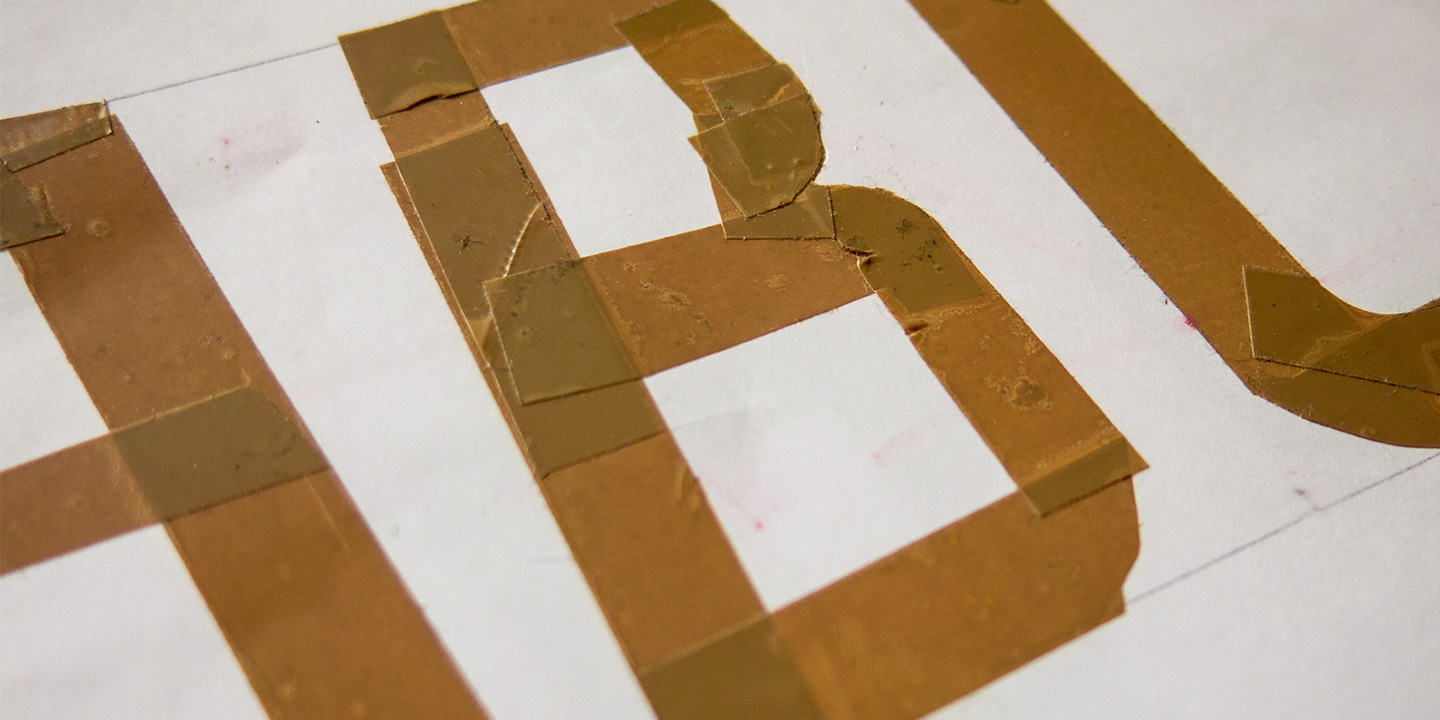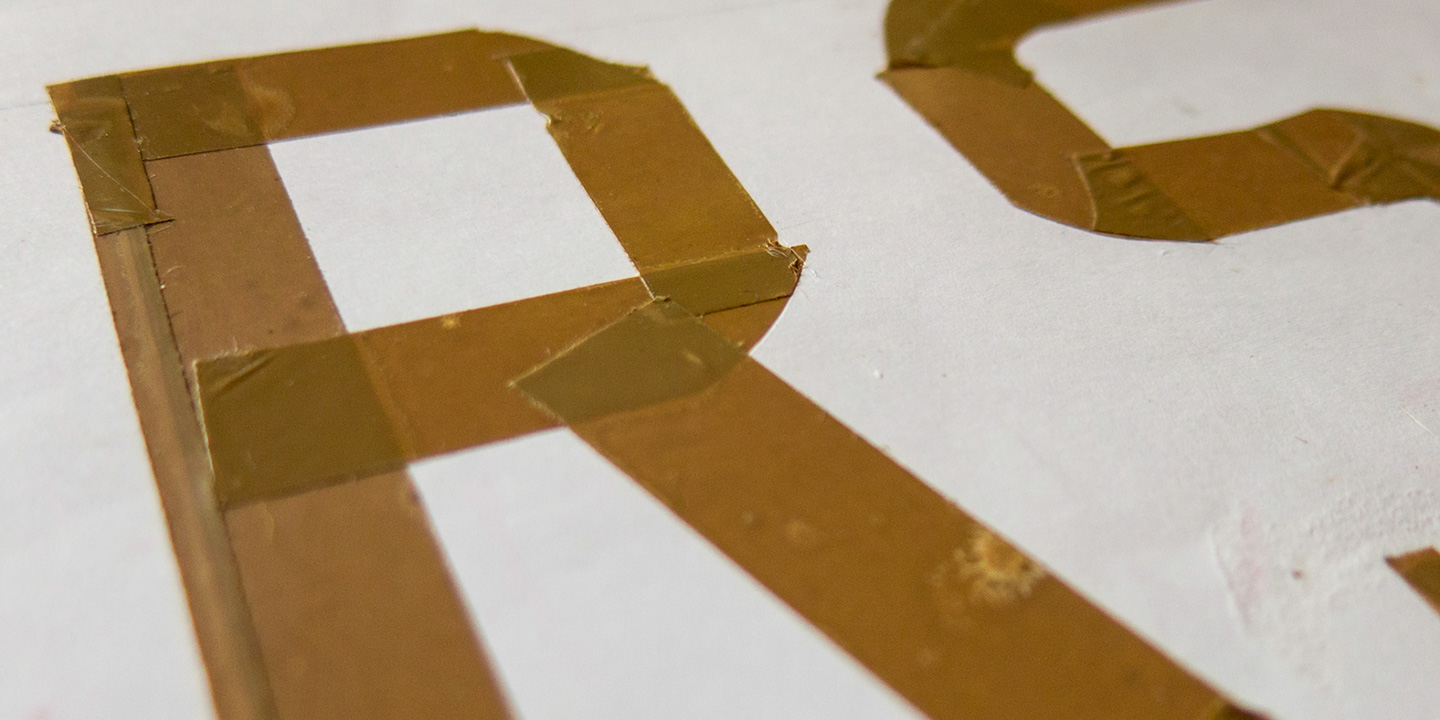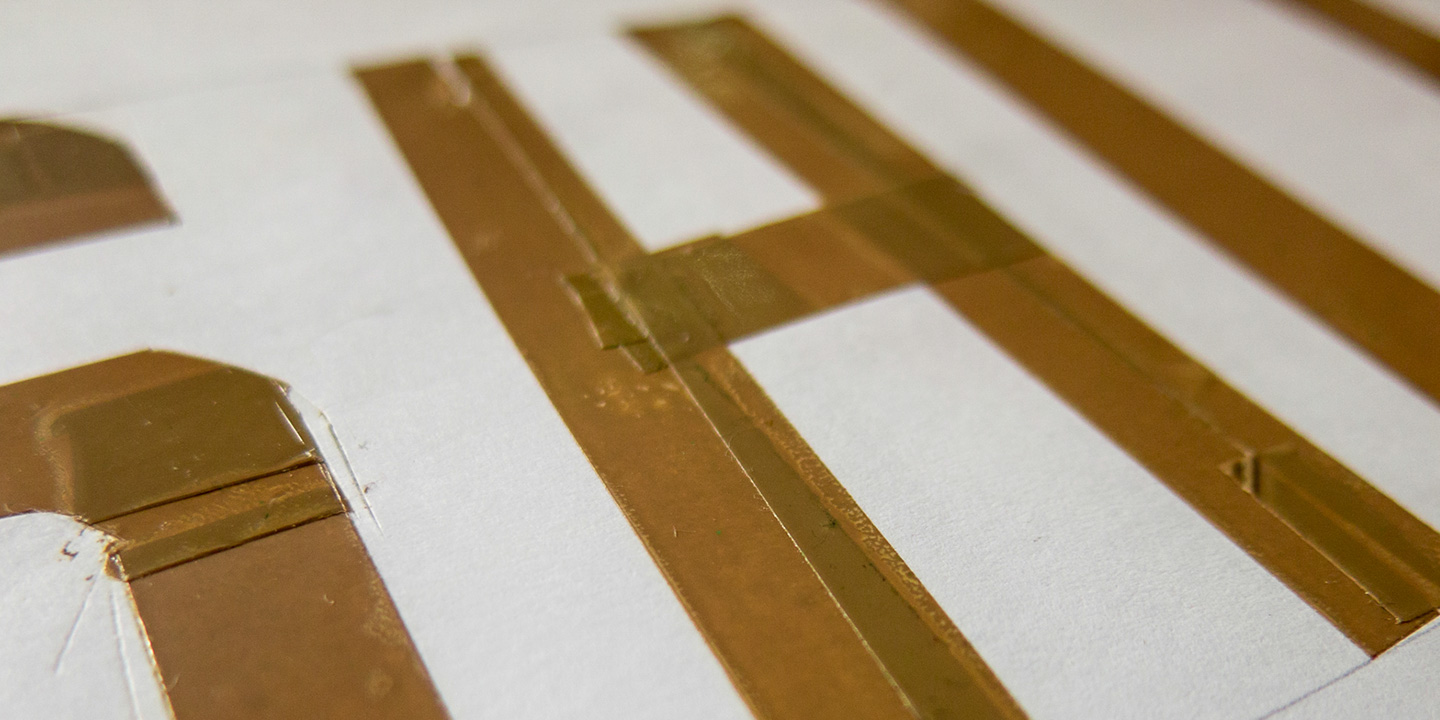
CA 12C13C
What began as letters held together with tape has evolved into CA 12C13C, a distinctive typeface with a handmade origin and a clear graphic personality. Originally built from taped forms, the font has been refined for digital use while preserving its raw, improvised character.
It comes with uppercase letters only, while the lowercase set includes a few alternative filled characters for added flexibility. With its intentionally limited character set and minimal letter count, CA 12C13C is designed to make a strong visual statement without overwhelming the layout. It is best used for headlines, titles, and other short display settings where its angular, unconventional structure can stand out.